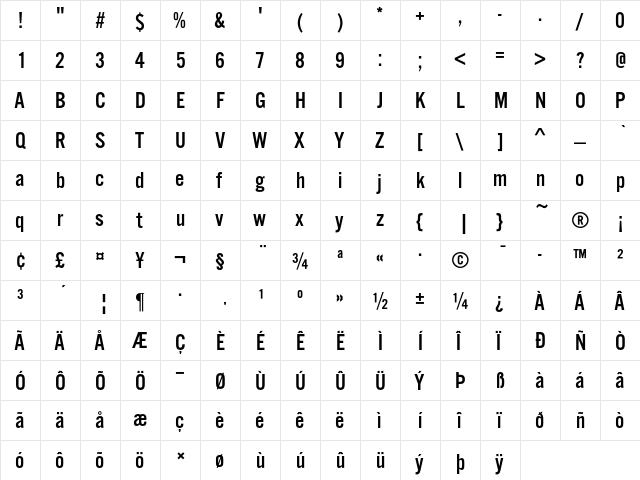
Alternate Gothic No3 D Regular
Design Context for Alternate Gothic No3 D Typeface
Alternate Gothic No3 D takes a clean, functional approach — its unadorned letterforms prioritise legibility and work reliably across screen and print environments.
Font Pairing: Works well alongside a characterful serif or display font that can carry the expressive load while Alternate Gothic No3 D handles the functional copy.
Pro Tip: Pair Alternate Gothic No3 D with a display or serif font for headlines — its neutral character makes it an excellent supporting player in complex typographic systems.